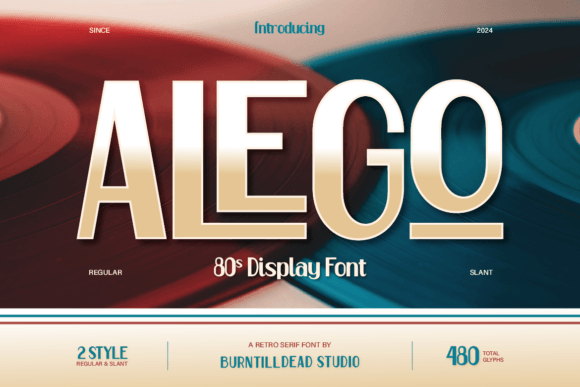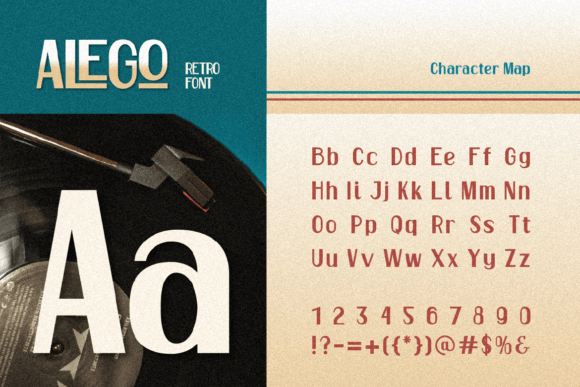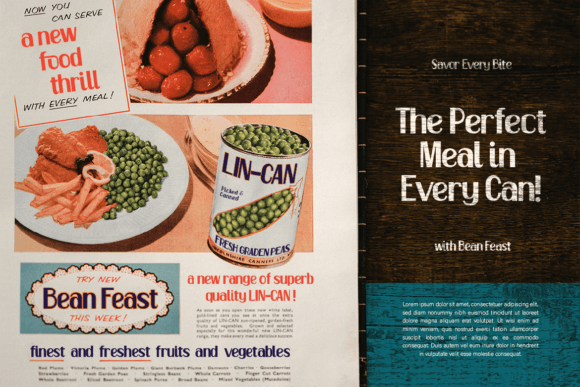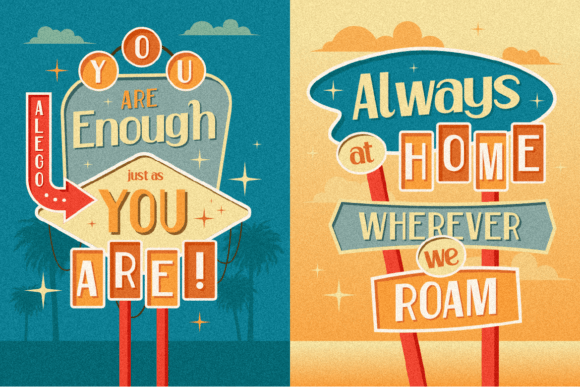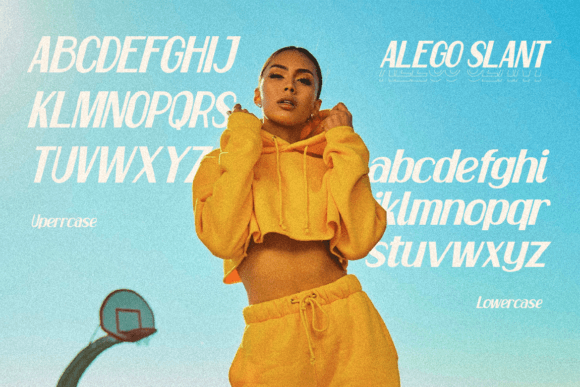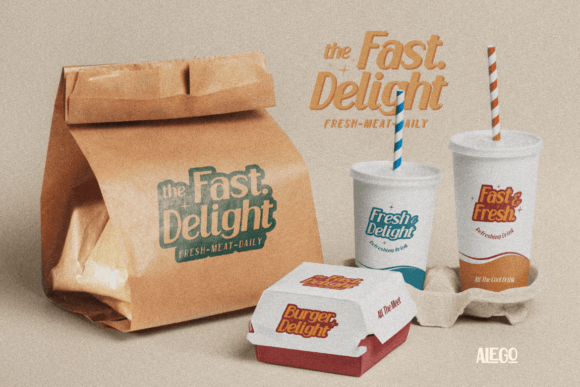
Introducing Alego: The Retro Display Font That’s Stealing Hearts
I’ll never forget the struggle I faced while working on a vintage-themed project for a client. The brief was simple: create a poster that screams nostalgia and timelessness. But, there was a catch – the font had to be perfect. I scoured the internet, tried countless fonts, but nothing seemed to fit the bill. That was until I stumbled upon Alego, a delightful retro display font that has since become a staple in my design arsenal.
What Makes Alego Special?
Alego is a sans serif font that embodies bold, simple, minimalist, and nostalgic elements. It’s perfect for creating eye-catching headlines, logos, posters, and any design that needs a dash of nostalgia and timeless style. Here are some reasons why Alego has become my go-to font:
- ✨ Unique Retro Vibe: Alego has a distinct retro feel that’s hard to find in modern fonts.
- ✅ Highly Versatile: It can be used for a wide range of design projects, from posters to logos.
- 💡 Easy to Read: Despite its bold and minimalist design, Alego remains highly legible.
- ✨ Alego’s bold and simple design makes it perfect for creating eye-catching headlines.
- ✅ The font is highly versatile and can be used for a wide range of design projects.
- 💡 Alego’s nostalgic elements add a touch of timelessness to any design.
- 🤔 Alego may not be the best choice for body text due to its bold design.
- ⚠️ Some users may find the font’s retro vibe too nostalgic for certain projects.
The Backstory Behind Alego
Alego was designed by a team of typographers who wanted to create a font that captures the essence of retro design. Inspired by vintage posters and classic typography, Alego is a modern take on classic design principles. The font’s bold and simple design makes it perfect for creating eye-catching headlines and logos.
| Font Name | Alego Font |
| Author | Burntilldead |
Q: What is Alego’s personality?
A: Alego has a bold, simple, and nostalgic personality that’s perfect for designs that require a touch of retro flair.
Q: Is Alego suitable for body text?
A: While Alego is a great font, it may not be the best choice for body text due to its bold design. It’s better suited for headlines and titles.